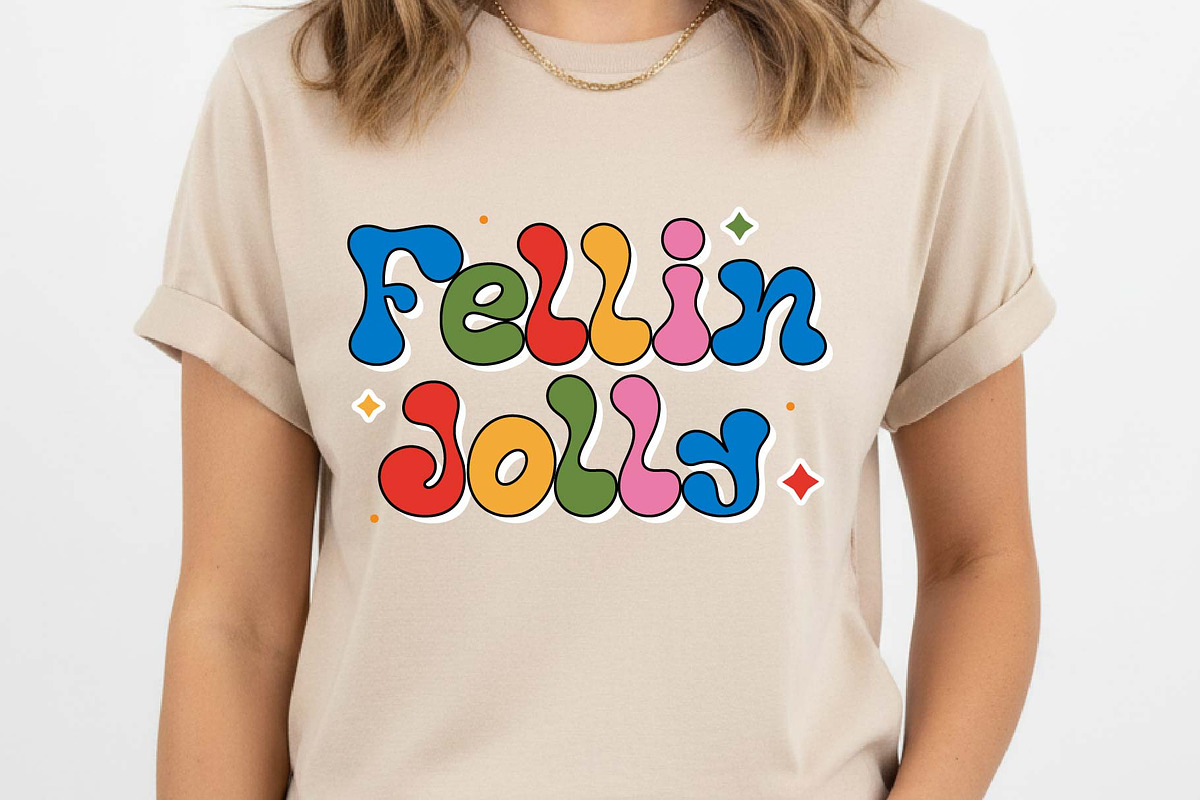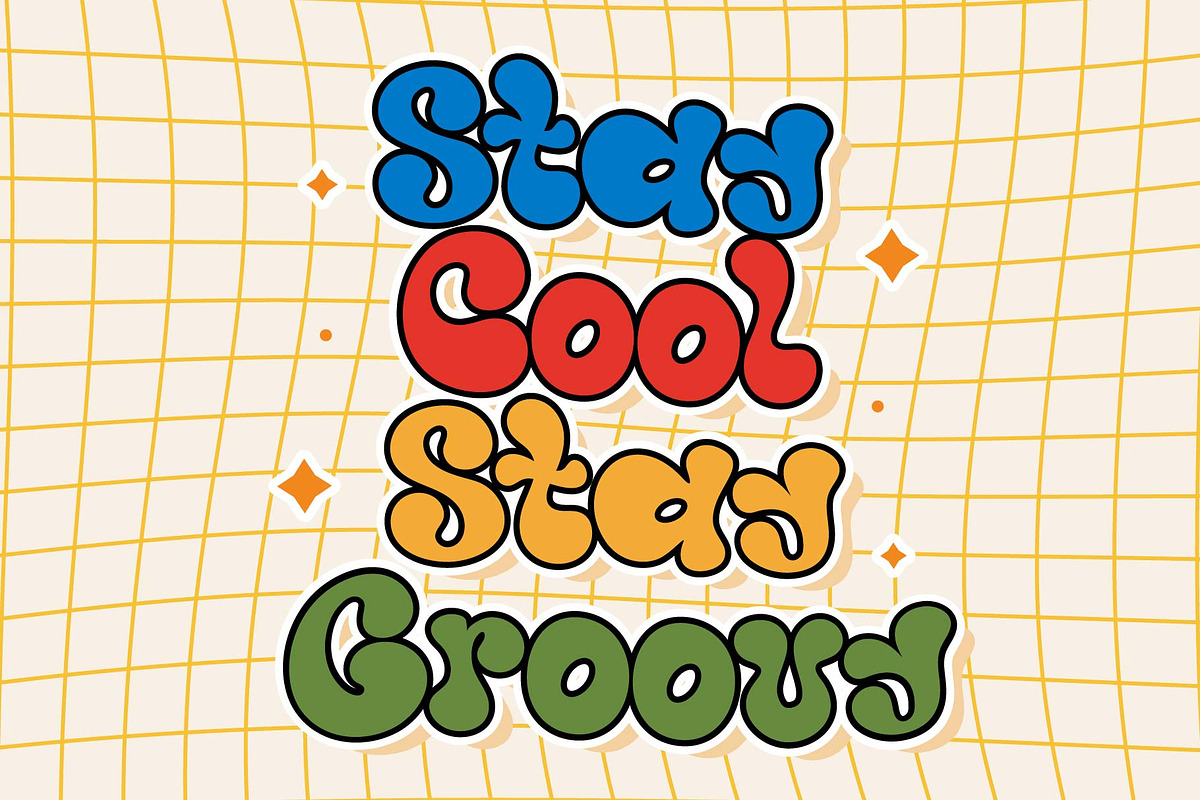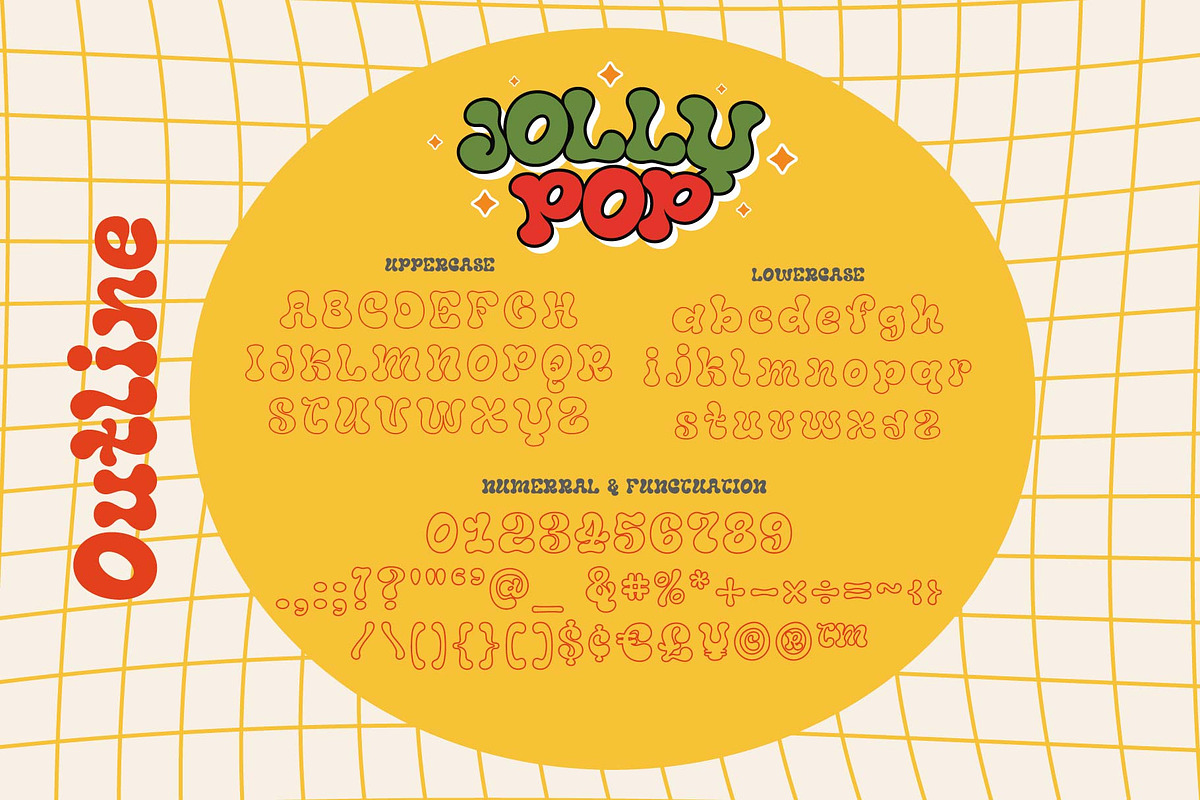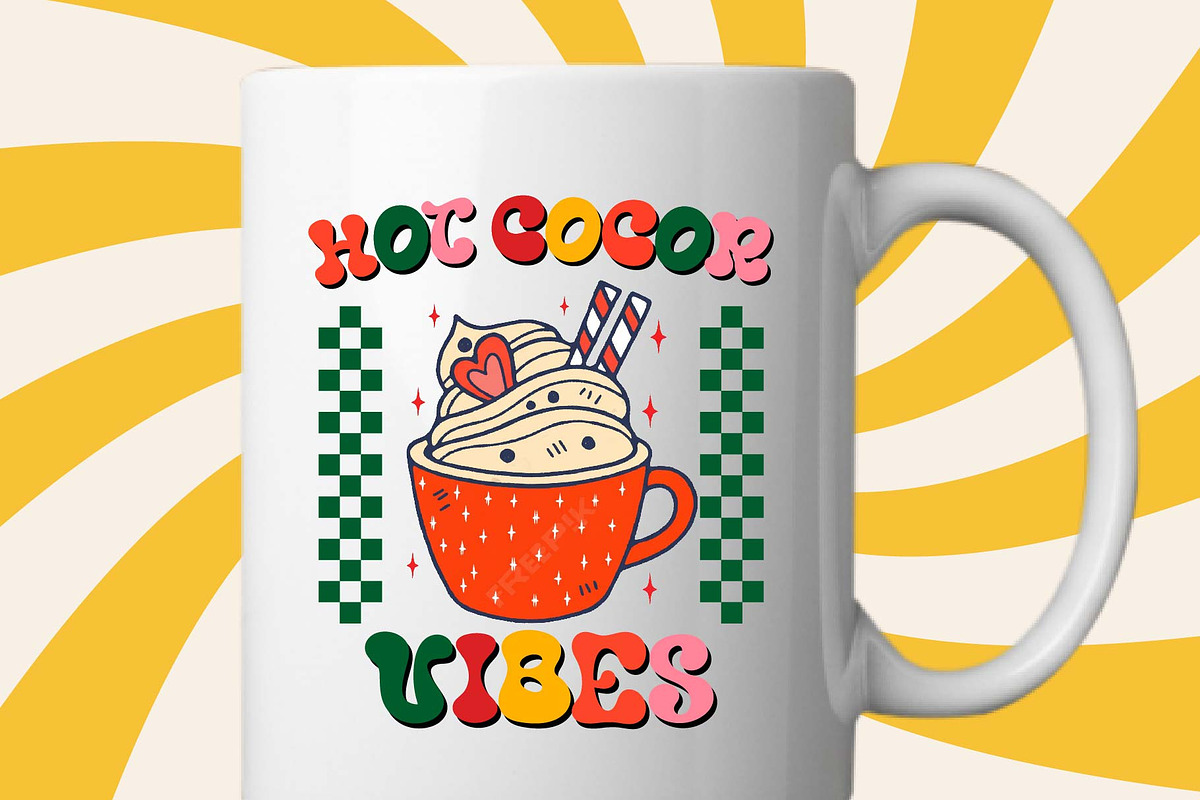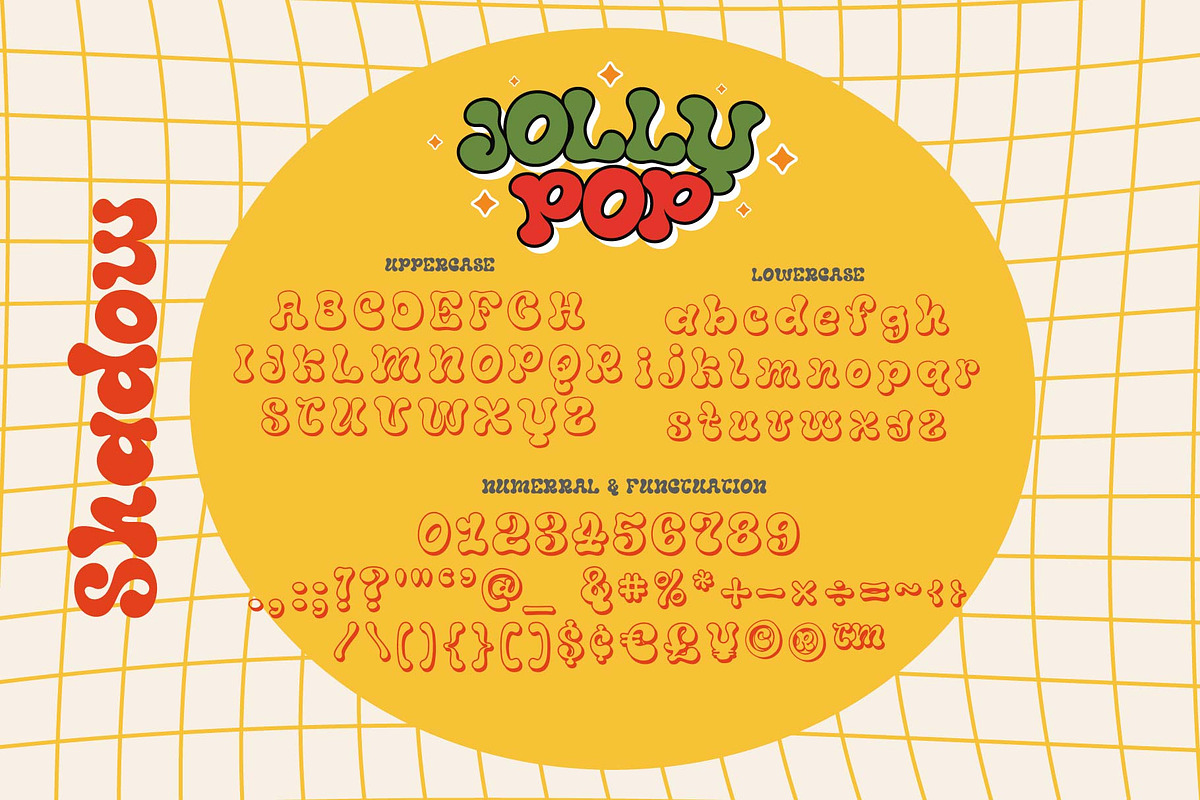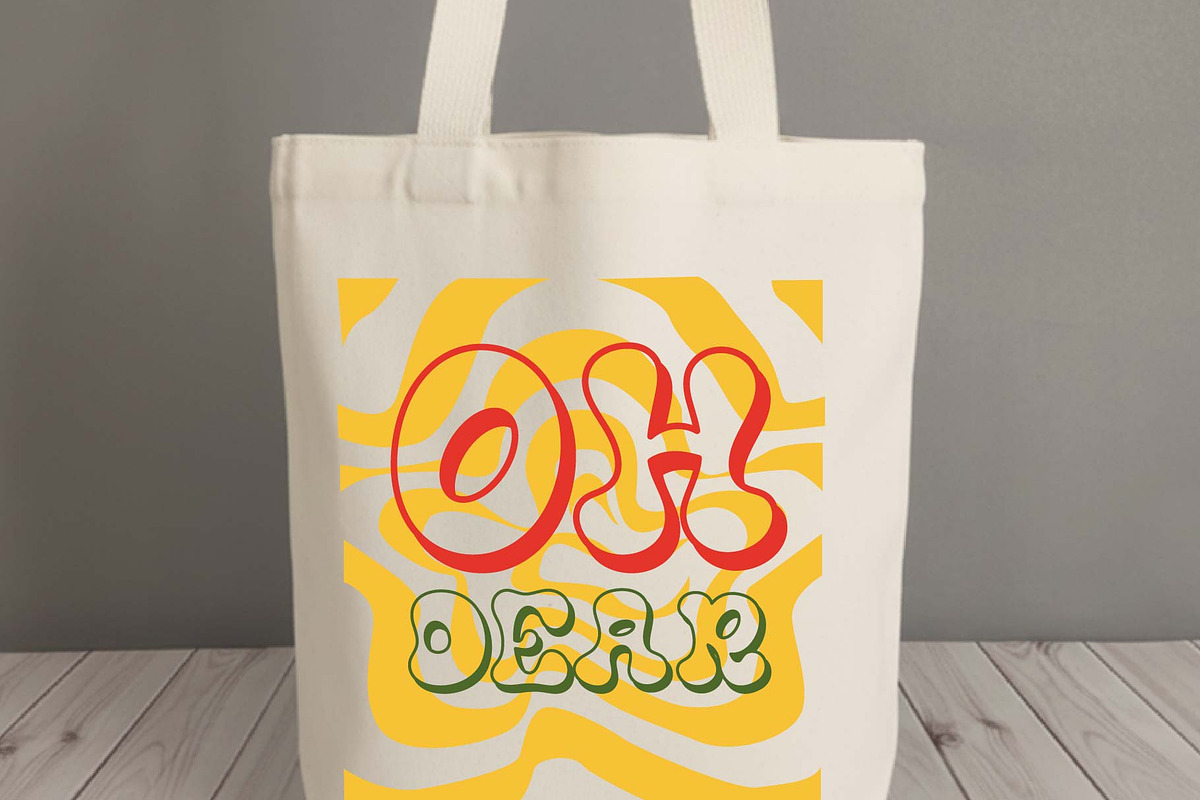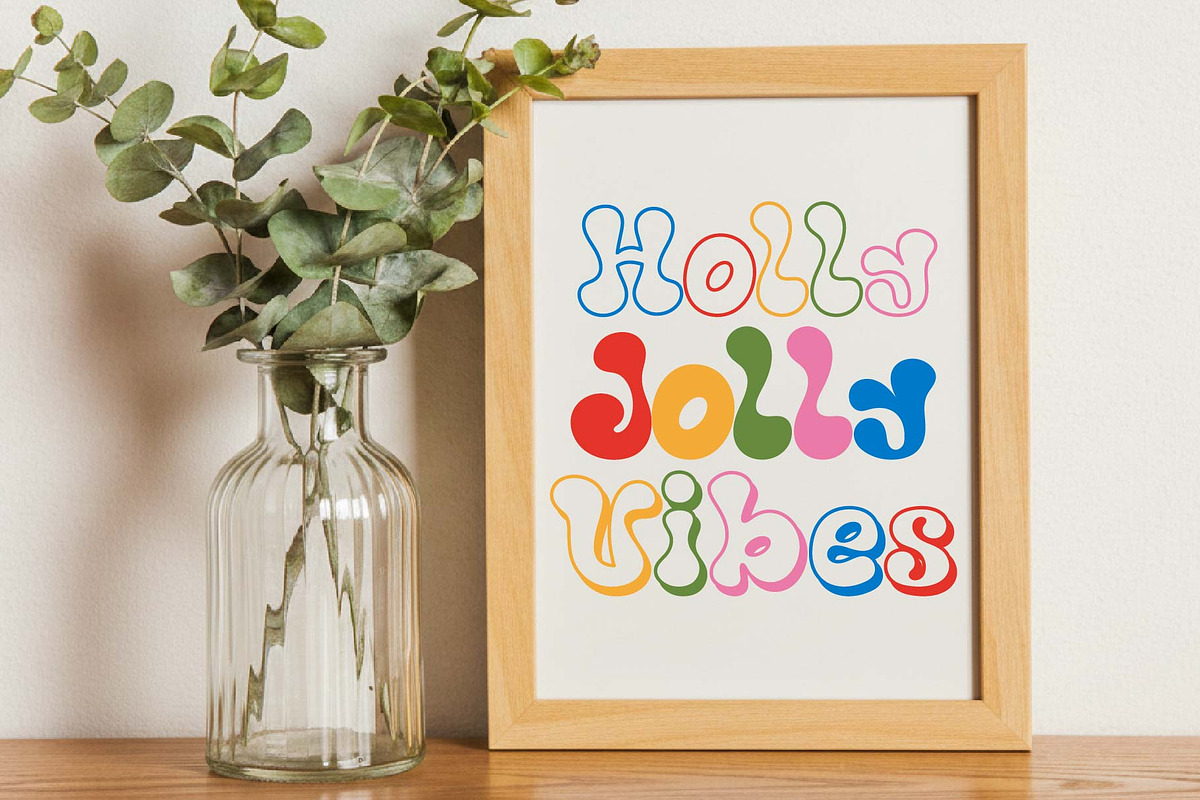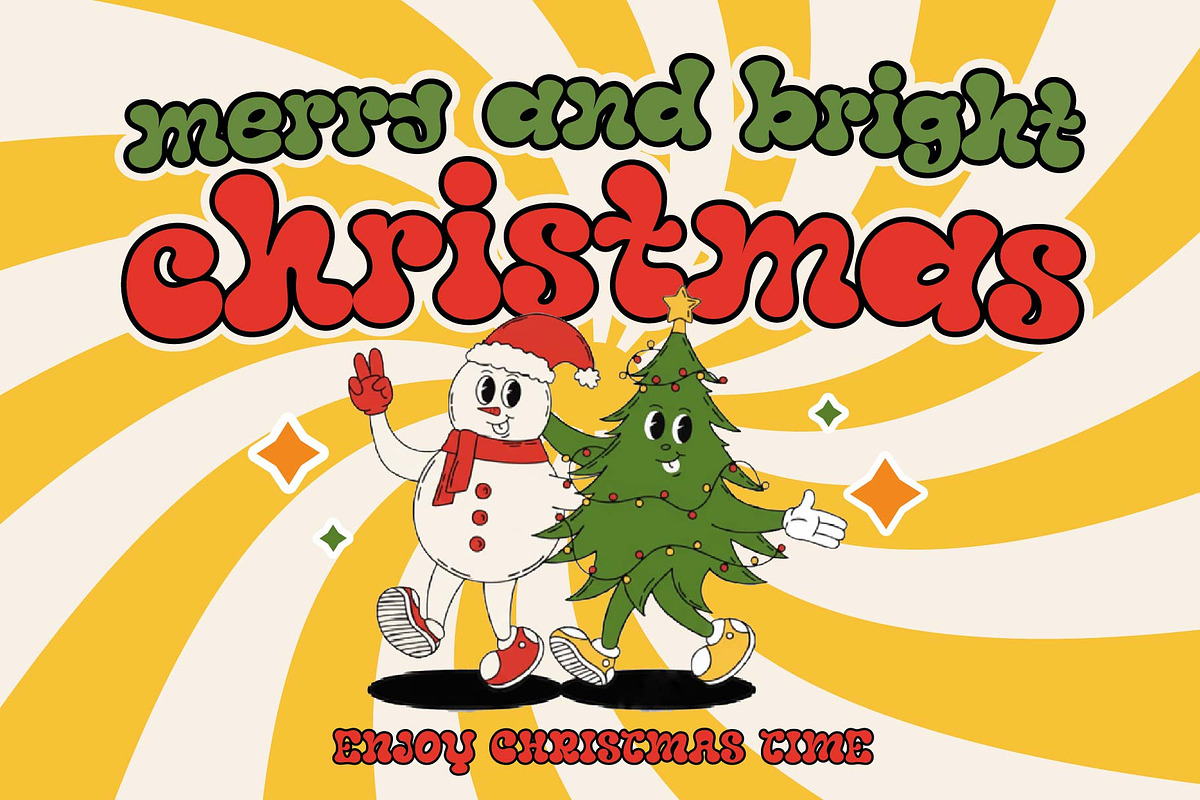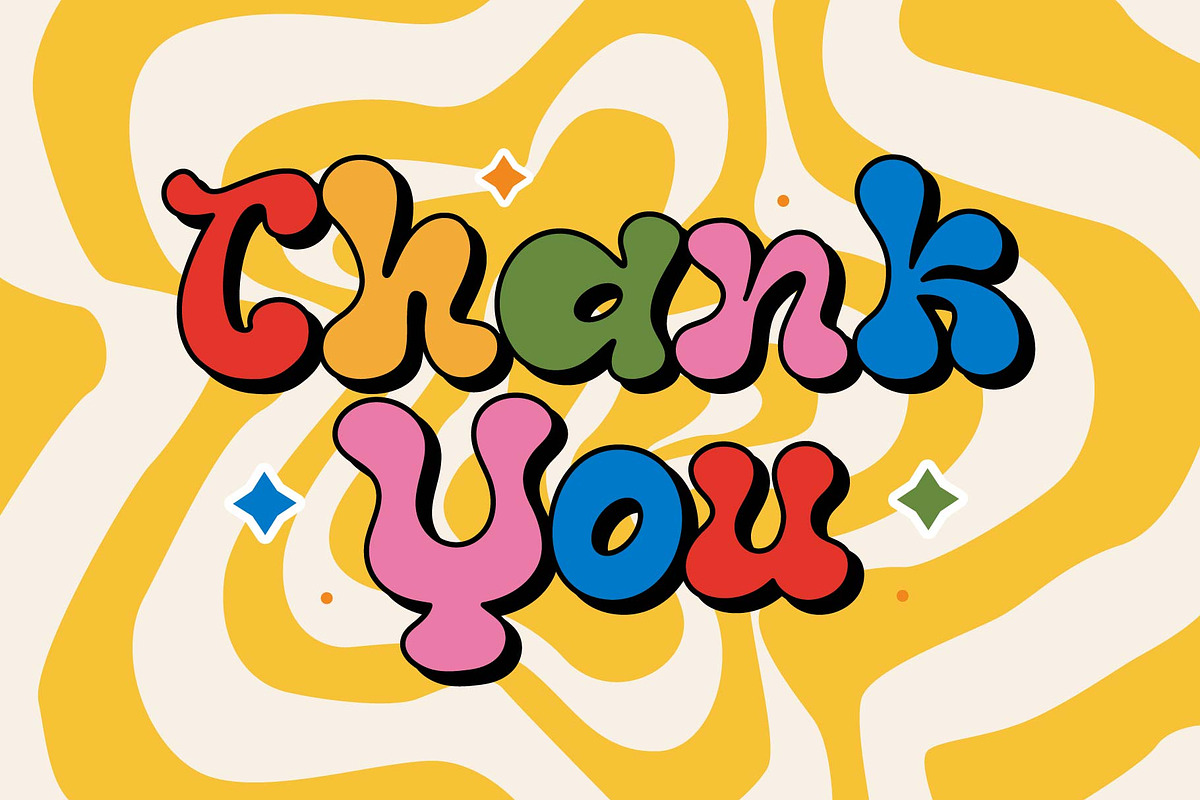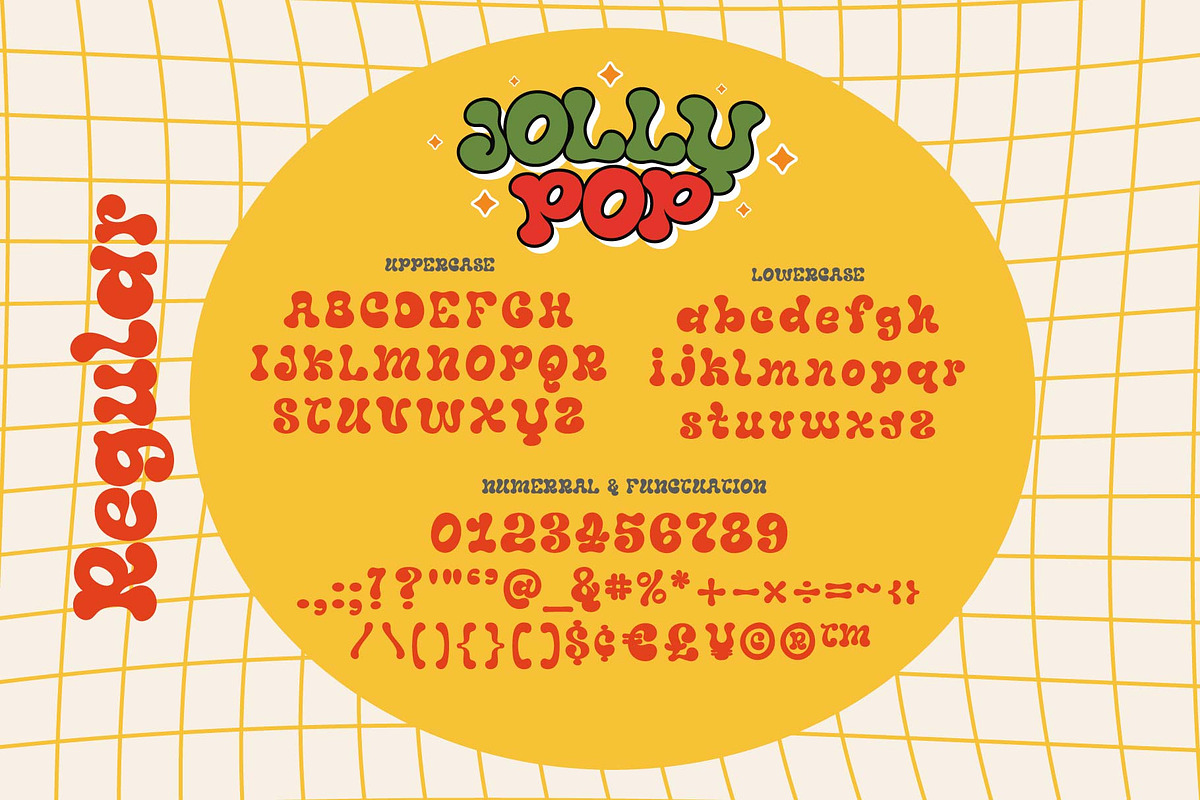
Jolly Pop font
Introducing Jolly Pop, a dynamic and visually stimulating typeface, drawing its inspiration from the vivacious charm of retro bubble lettering. This typeface is your ideal choice when you wish to infuse a spirited and singular touch to your projects. Be it vibrant posters, exciting event graphics, delightful children’s activities, sweetness-laden candy branding, emotionally captivating social media visuals, or any design that craves a hearty dose of nostalgic charm, Jolly Pop is your go-to option.
Presented with three unique styles, Jolly Pop gives you the latitude to unleash your creativity and adaptability in all your projects. Its audacious shapes and jovial colors resonate with an friendly energy, providing an effervescent feel to every design endeavor. Let your creative dreams resonate with the quirky and rhythmic spirit of Jolly Pop!